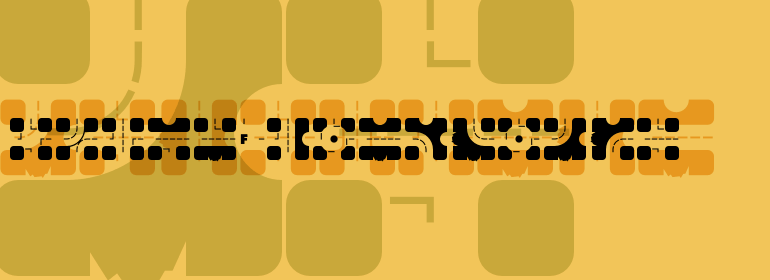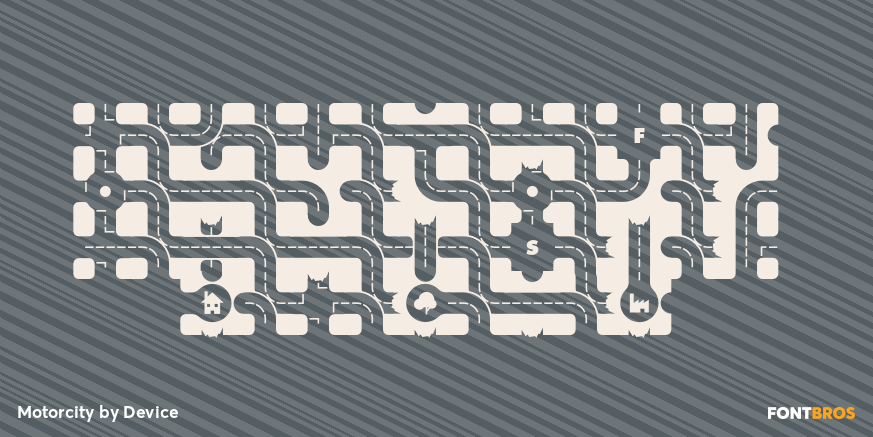
Motorcity
Font Family by Device
Because it sits in the dingbat category and is also associated with futuristic styles, it works well for display-driven projects that need strong graphic accents—think posters, branding concepts, packaging, apparel graphics, or social visuals with a tech-inspired or industrial tone. With 59 glyphs in the style, it offers a compact set of forms for building eye-catching decorative compositions.